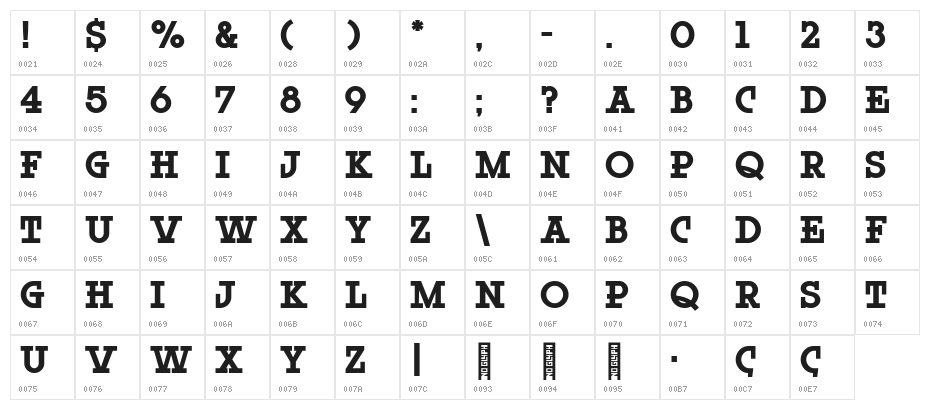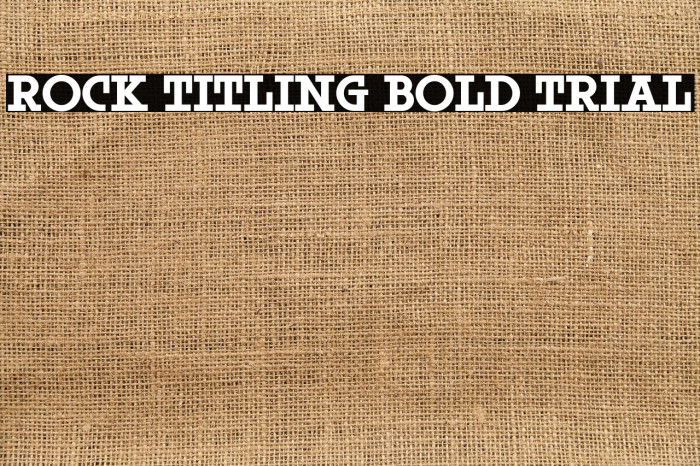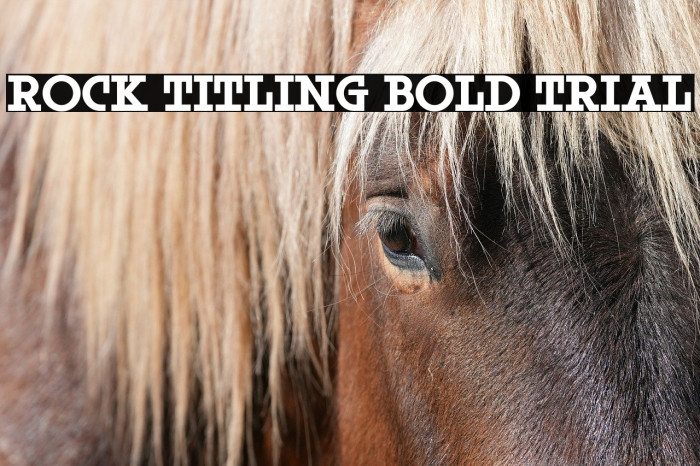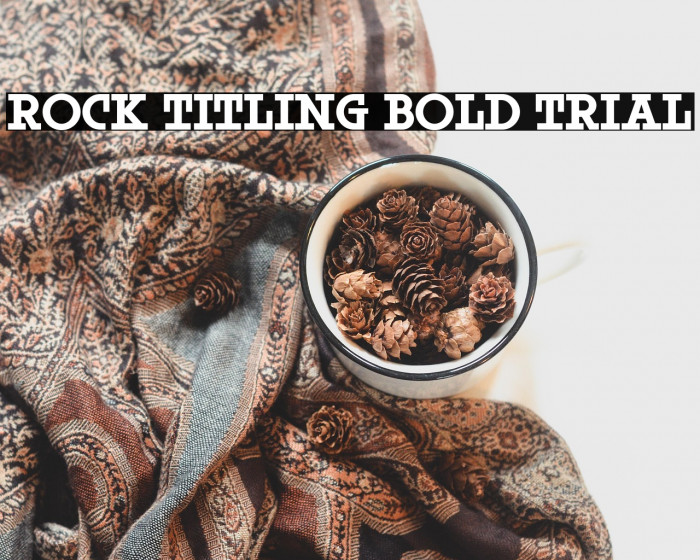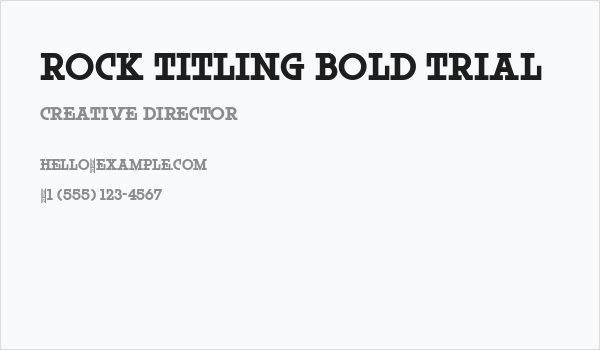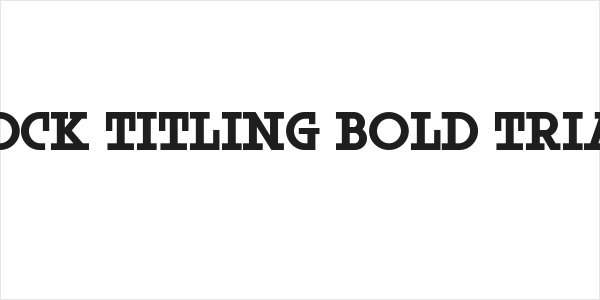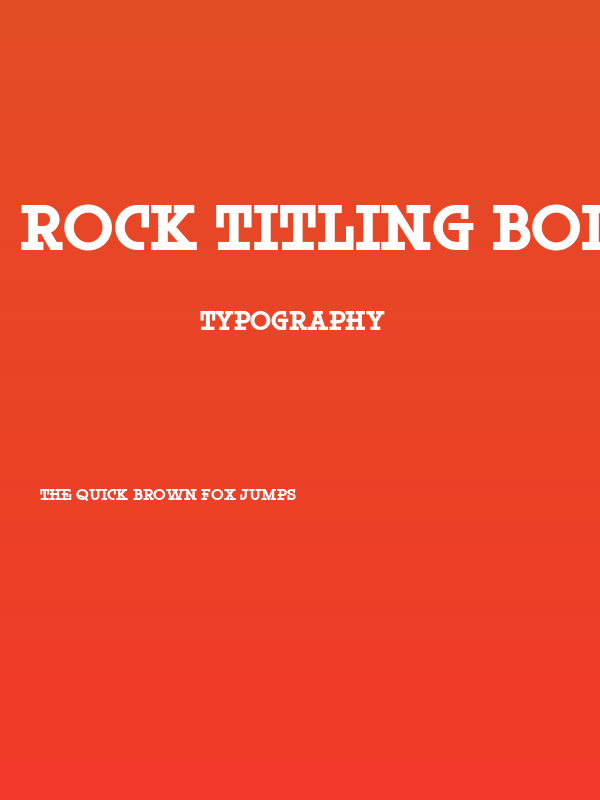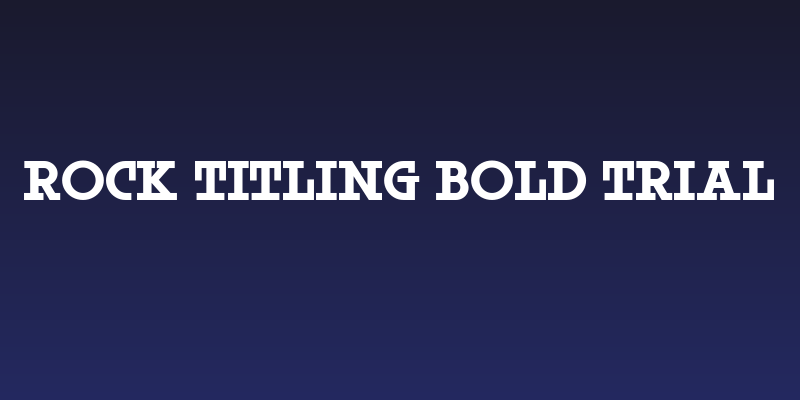
Rock Titling Bold Trial Font
Rock Titling Bold Trial Description
This font features a bold and robust design with strong, thick strokes that convey a sense of authority and confidence. The characters are well-defined with sharp edges and a consistent weight throughout, making it highly legible and impactful. The uppercase letters are particularly striking, with a slightly condensed form that adds to the font's commanding presence. The numerals and special characters maintain the same boldness, ensuring uniformity across all text elements. This font's design is ideal for making a statement, whether in print or digital media.
| Proposed Projects | Ideal for headlines, posters, branding, and any project requiring a strong visual impact. |